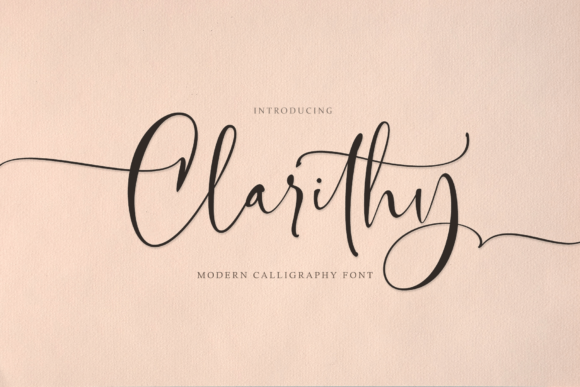
Introducing Clarithy Font: The Epitome of Elegance and Sophistication
Are you tired of using the same old fonts for your design projects? Look no further! Clarithy Font is here to revolutionize the way you approach typography. This exquisite handwritten font is masterfully designed to become a true favorite among designers and crafters alike. With its classy calligraphic influences and contemporary feel, Clarithy is the perfect addition to any project.
The Perfect Blend of Classic and Modern
Clarithy Font strikes the perfect balance between traditional calligraphy and modern design. Its elegant strokes and flourishes evoke a sense of sophistication and luxury, while its clean lines and simplicity ensure it remains fresh and relevant. Whether you’re working on a wedding invitation, a branding project, or a digital platform, Clarithy is the ideal choice for those seeking to make a lasting impression.
One of the standout features of Clarithy Font is its PUA (Private Use Area) encoding. This means that you can access all the glyphs and swashes with ease, giving you unparalleled creative control over your designs. With Clarithy, you can effortlessly add intricate details and flourishes to your work, taking it to new heights of elegance and refinement.
Clarithy Font is incredibly versatile, making it suitable for a wide range of design applications. Some of the many ways you can use Clarithy include:
- Digital platforms, such as blogs and social media
- Print materials, like brochures and flyers
Why Choose Clarithy Font?
With so many fonts available, why choose Clarithy? Here are just a few reasons why designers and crafters are falling in love with this exquisite font:
- Unique and distinctive: Clarithy stands out from the crowd, offering a fresh and original take on traditional calligraphy.
- Elegant and sophisticated: This font exudes refinement and poise, making it perfect for high-end designs.
- Easy to use: With PUA encoding, accessing glyphs and swashes has never been simpler.
- Highly versatile: Clarithy can be used for a wide range of design applications.
Tips for Using Clarithy Font
To get the most out of Clarithy Font, here are a few expert tips:
- Experiment with sizes: Clarithy looks stunning in large display sizes, but it’s also effective in smaller body text.
- Play with colors: This font pairs beautifully with a range of colors, from rich jewel tones to soft pastels.
- Add texture and depth: Combine Clarithy with textures and patterns to add depth and visual interest to your designs.
Clarithy Font is a game-changer for designers and crafters seeking to elevate their typography. With its exquisite calligraphic influences, contemporary feel, and PUA encoding, this font offers endless creative possibilities. Whether you’re working on a high-end branding project or a personal craft project, Clarithy is sure to become your new favorite font. So why wait? Fall in love with Clarithy and bring your projects to new heights of elegance and sophistication!